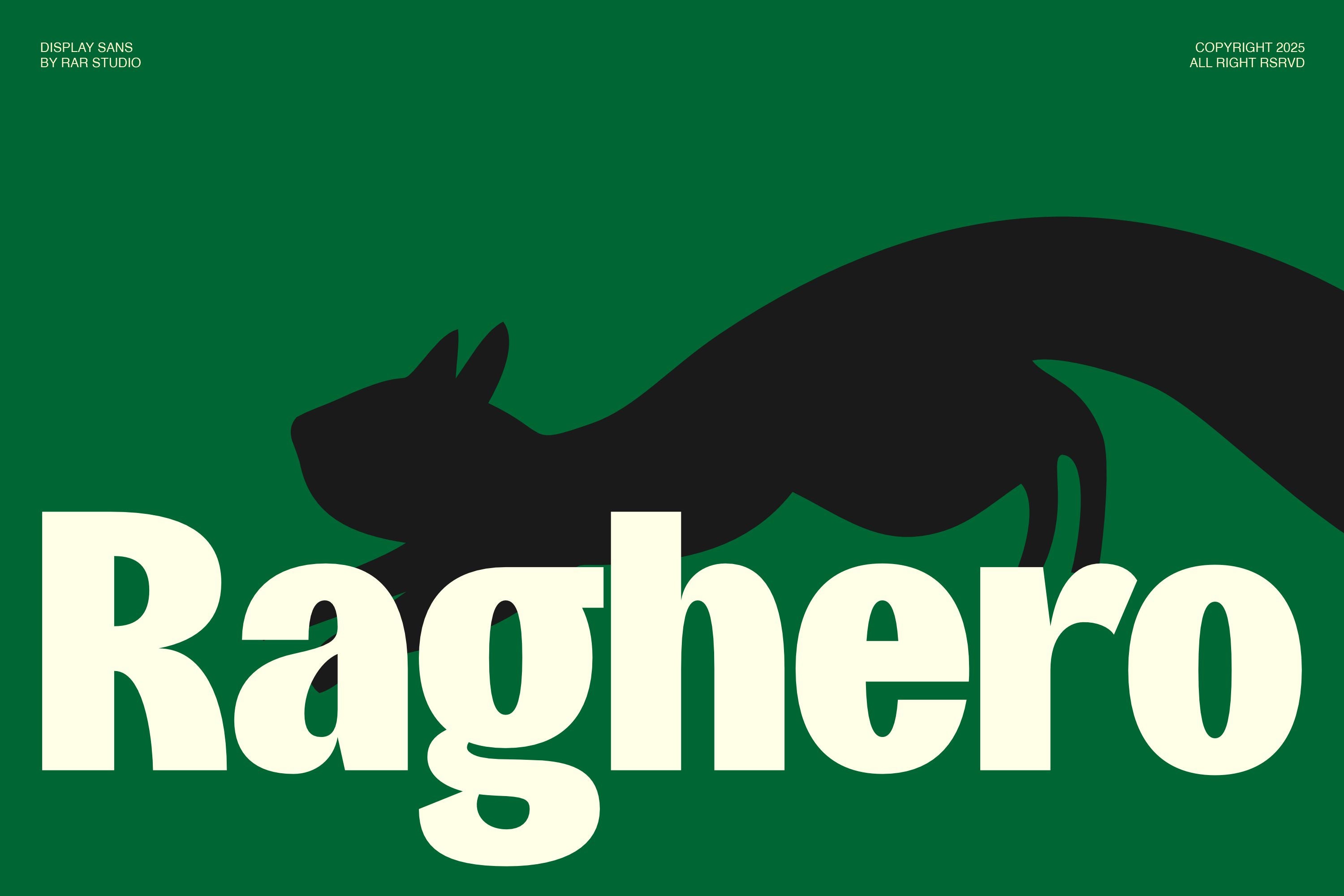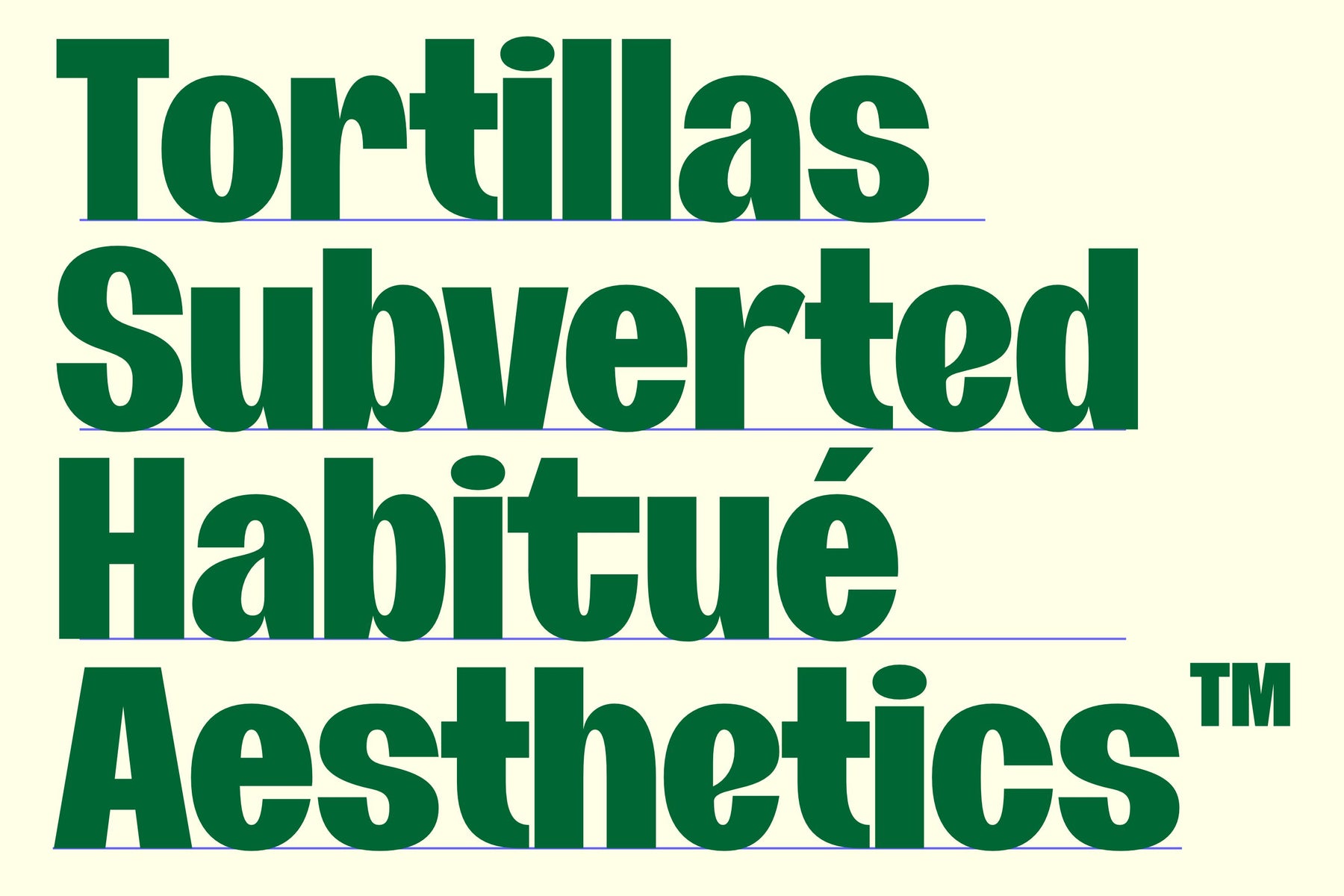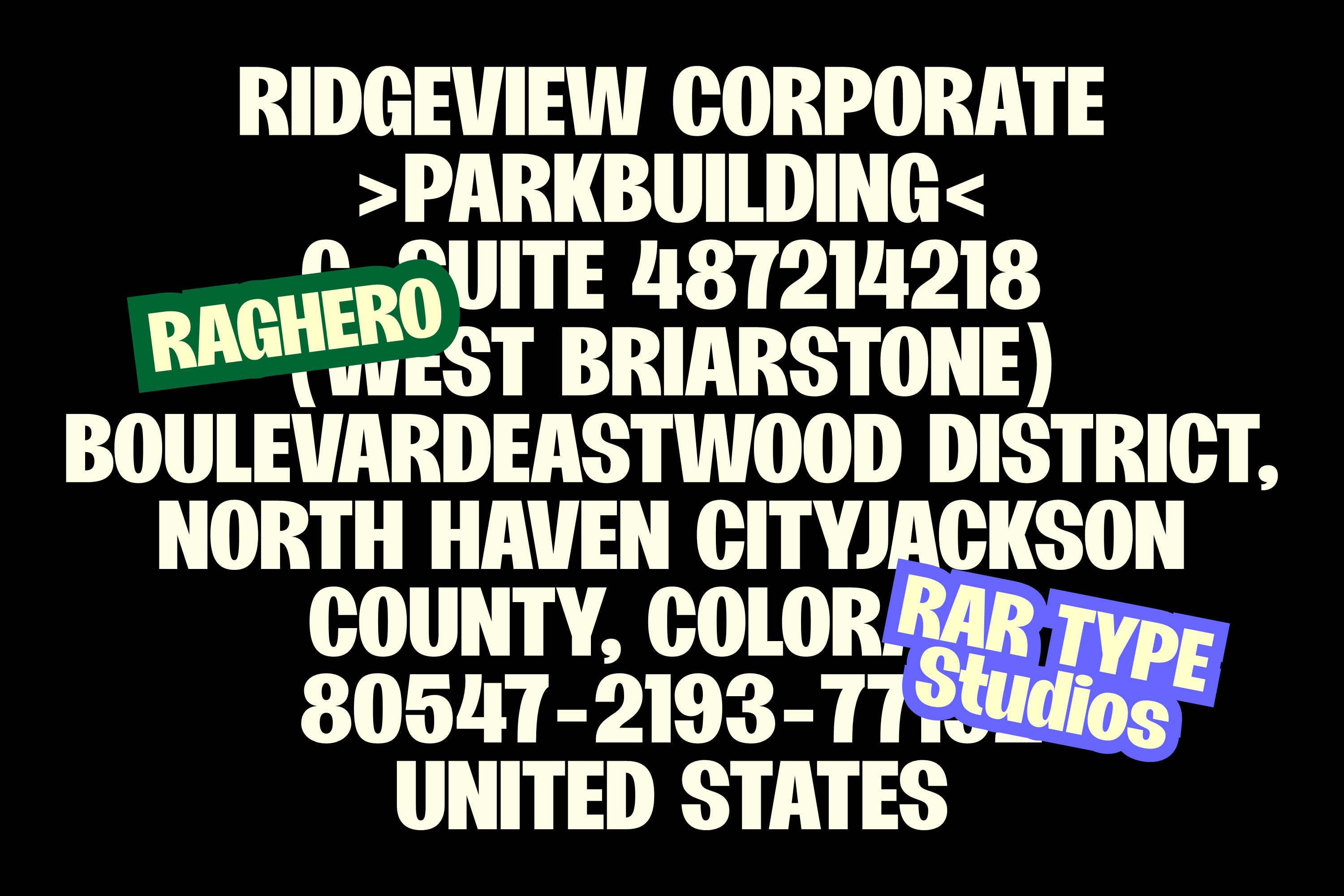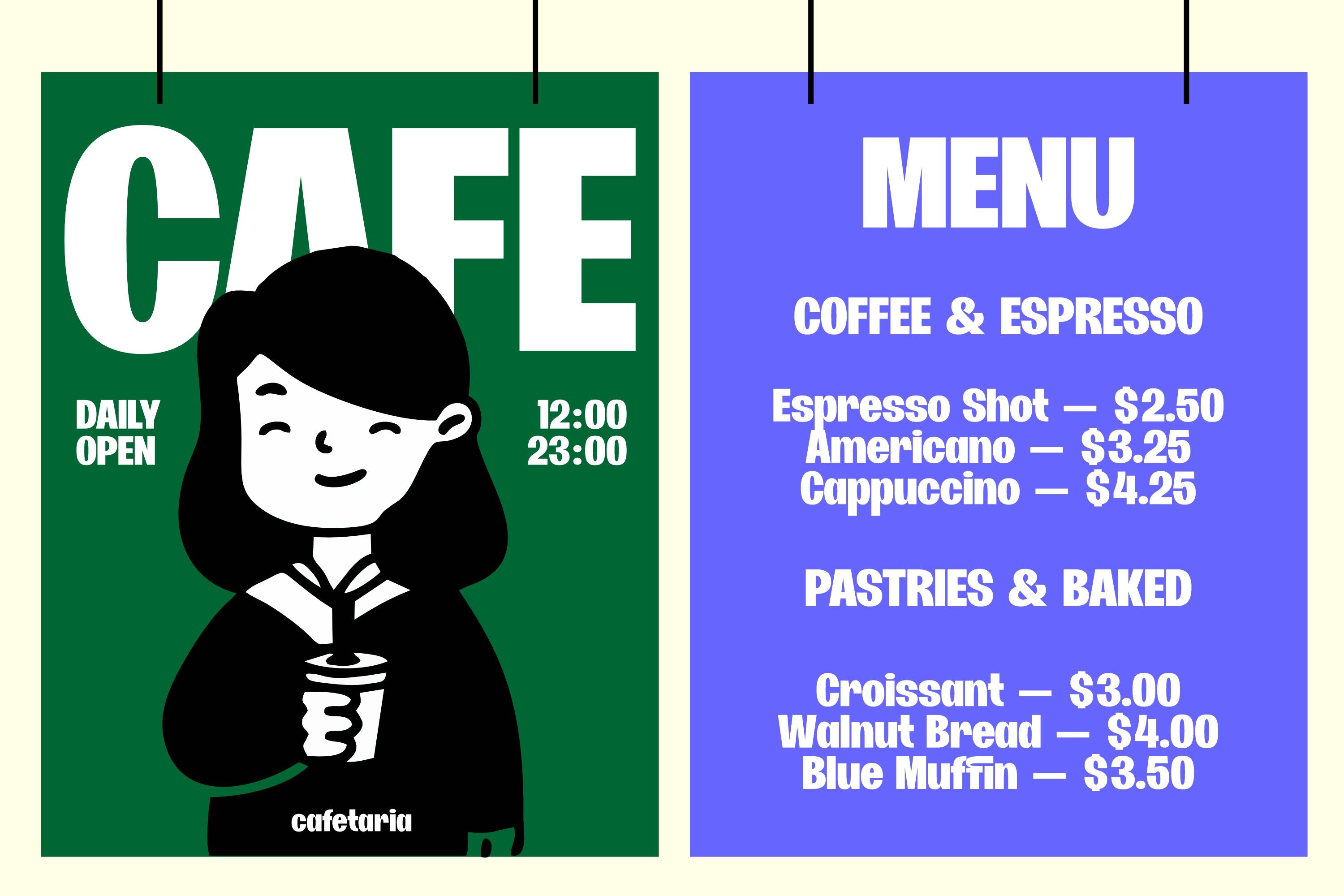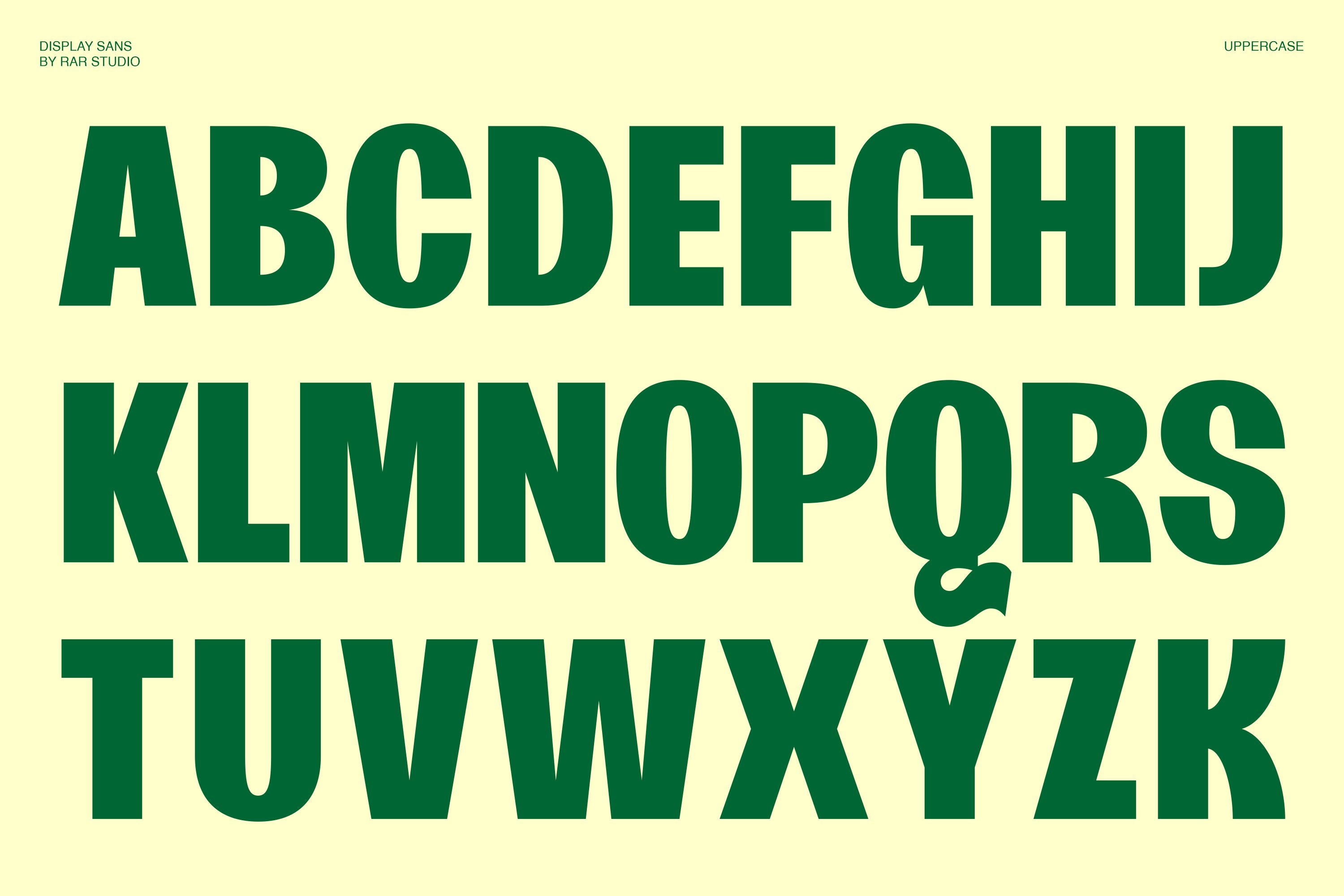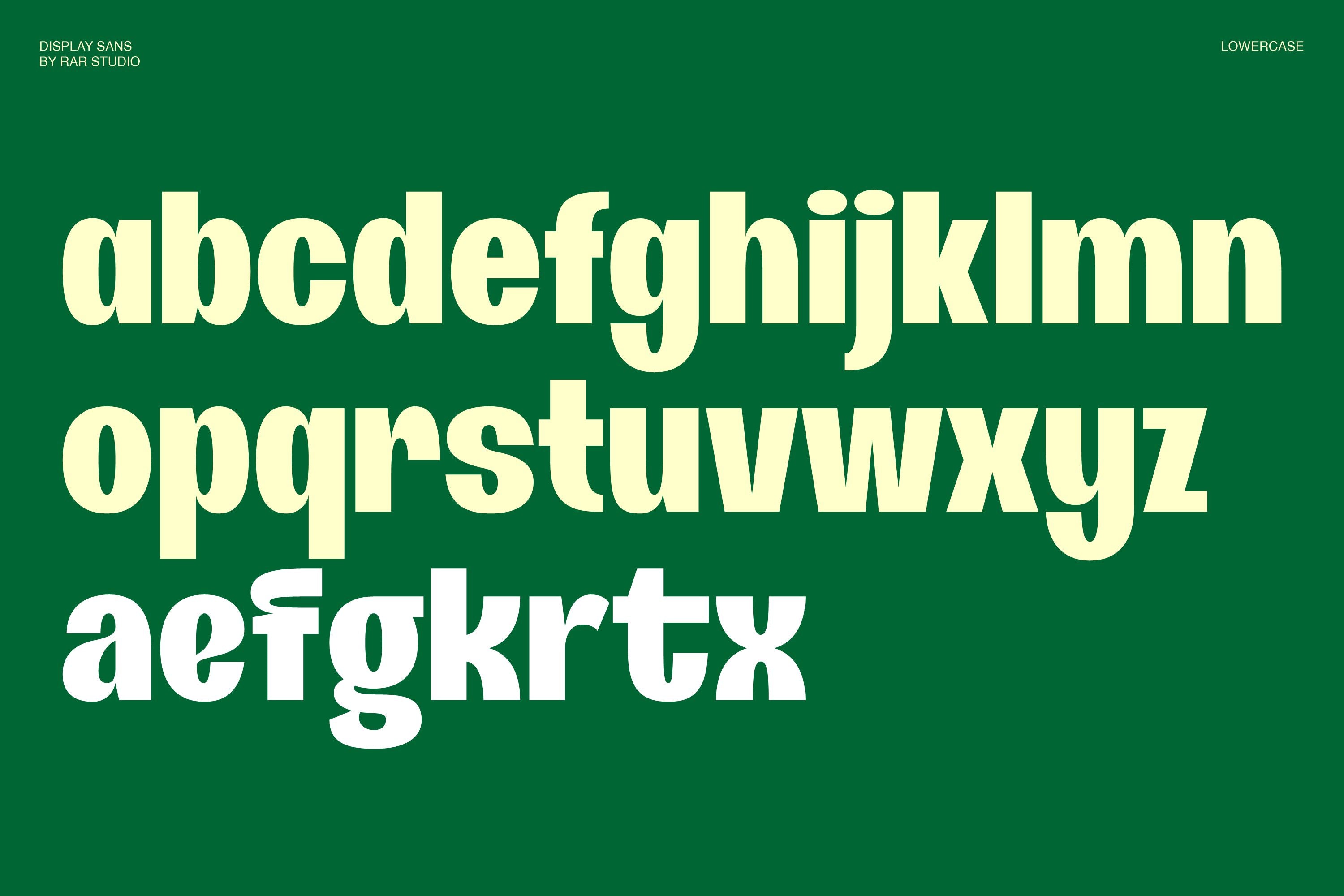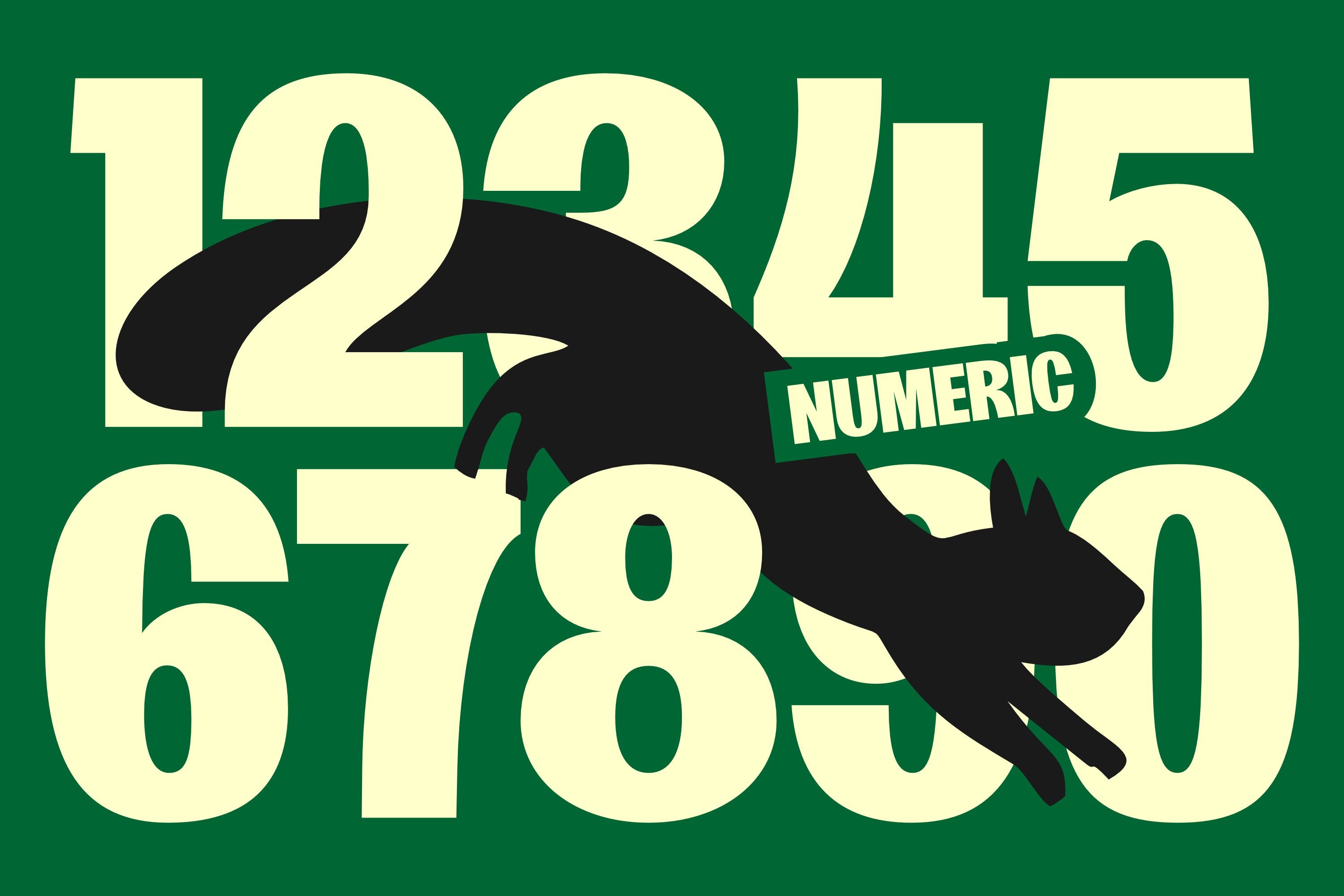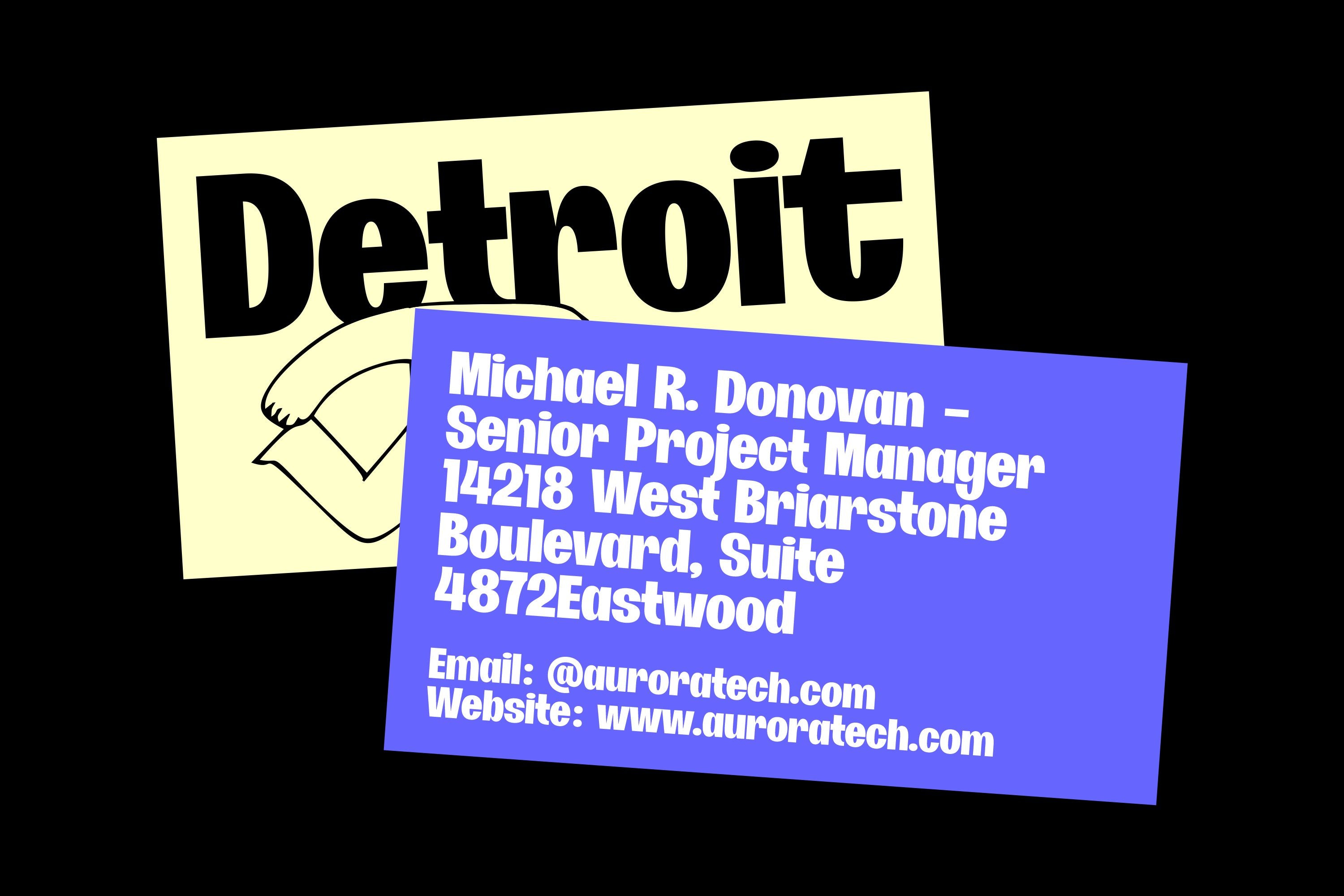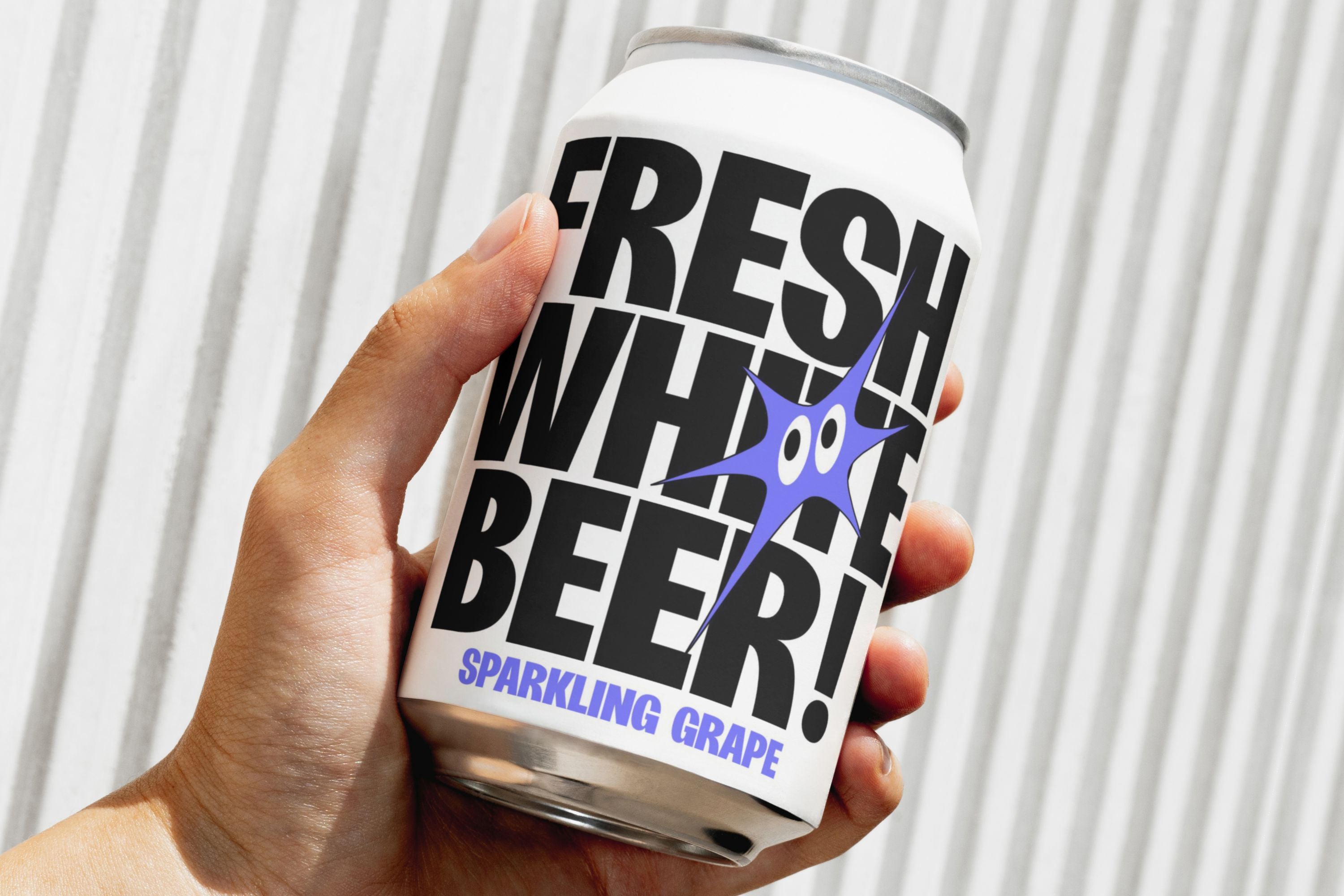
Raghero by Rar Typeworks is a modern display sans typeface crafted to deliver a sense of boldness, stability, and distinctive character. Featuring heavy weights, wide proportions, and confidently rounded forms, Raghero is designed to stand out in large-scale visual communication.
The typeface blends geometric strength with organic softness, resulting in a look that is both approachable and professional. Its uppercase characters appear strong and monumental, while the lowercase set introduces a dynamic rhythm with unique letterform variations that enhance brand personality.
Raghero’s identity is further enriched by its expressive stylistic alternates and highly legible numeral set, making it a powerful choice for brand identity, marketing campaigns, posters, packaging, and any communication that requires a commanding yet friendly visual presence.